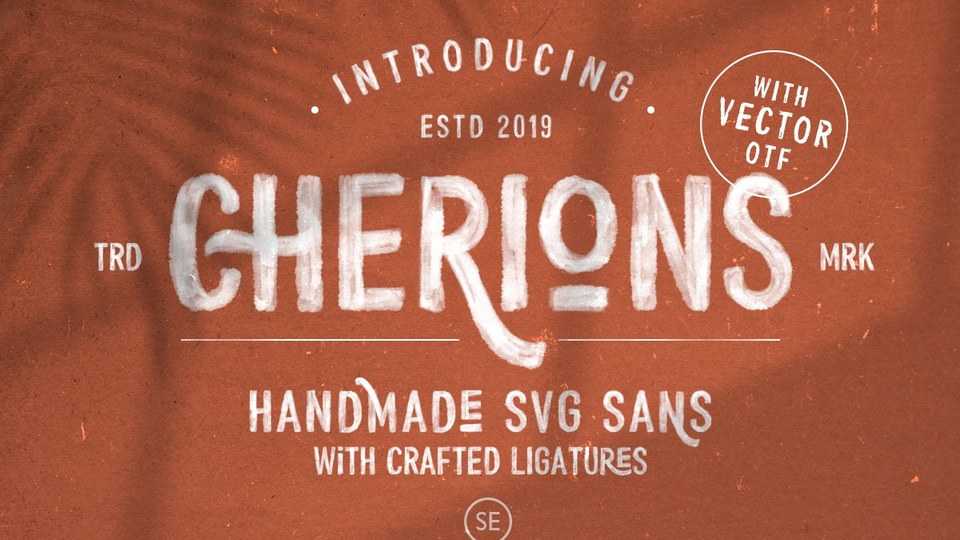
Download Cherions is an authentic handmade font with a textured brush look. Cherions is great for making realistic hand lettering, for promotions, posters or other purposes that will make your design more real and hand crafted.